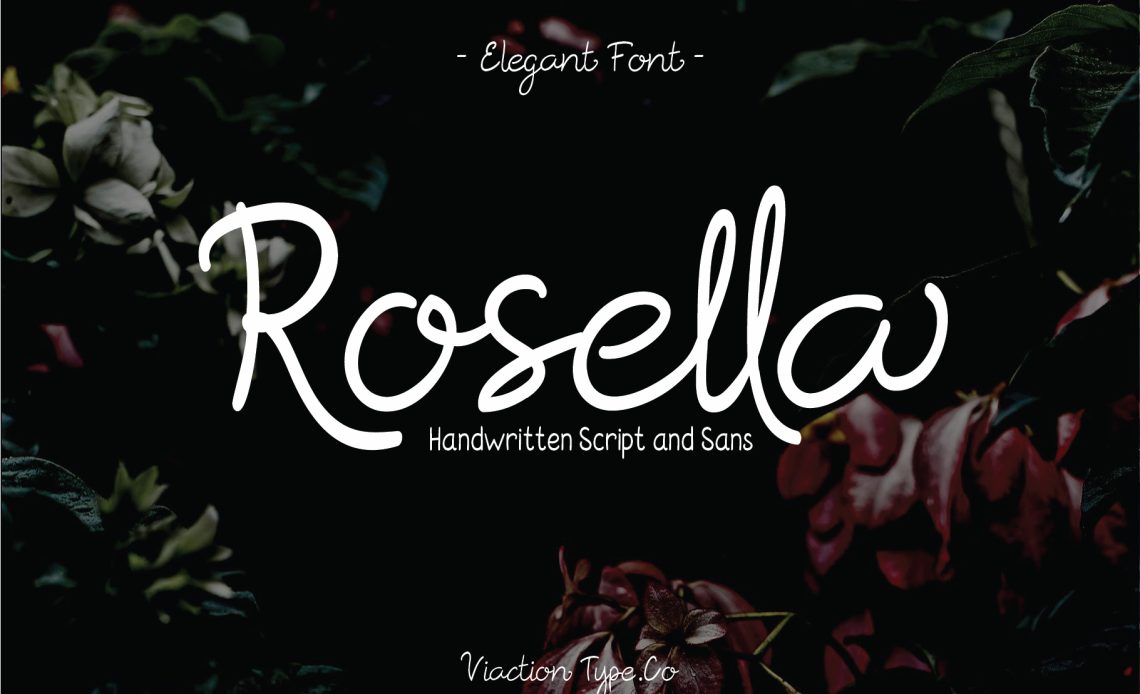
Introducing Rosella Font, the ultimate script font that will breathe life into your printed letters! Created by the talented team at Viaction Type.Co, this monoline font duo is the perfect choice for designers looking to add a touch of elegance and charm to their projects.
With its hallmark handwritten style, Rosella Font exudes a unique and captivating vibe that is sure to catch the eye of anyone who lays eyes on it. But what sets it apart from other script fonts is its perfect combination with a sans serif font, creating a well-balanced and thoughtful look that is both modern and timeless.
Rosella Font has been carefully crafted to meet the high standards of designers and creatives alike. Its versatility knows no bounds, making it suitable for a wide range of design projects. Whether you're working on a wedding invitation, a logo design, or even a branding project, Rosella Font will elevate your work to new heights.
One of the key reasons why Rosella Font stands out from the crowd is its ability to evoke emotions and convey messages in a powerful way. Its graceful curves and fluid strokes bring a sense of sophistication and grace to any design, leaving a lasting impression on your audience. With Rosella Font, your printed letters will exude personality and make a statement like never before.
But it's not just about aesthetics - Rosella Font is also designed with functionality in mind. Its clean and legible characters ensure that your message is delivered with clarity and impact. Say goodbye to dull and uninspiring fonts, and say hello to Rosella Font, where each letter tells a story and captures the essence of your brand.
When you download Rosella Font, you're not just getting a set of letters. You're gaining access to a world of possibilities and creative opportunities. Let your imagination run wild as you explore the endless combinations and variations that this font duo offers. From bold headlines to delicate calligraphy, Rosella Font has got you covered.